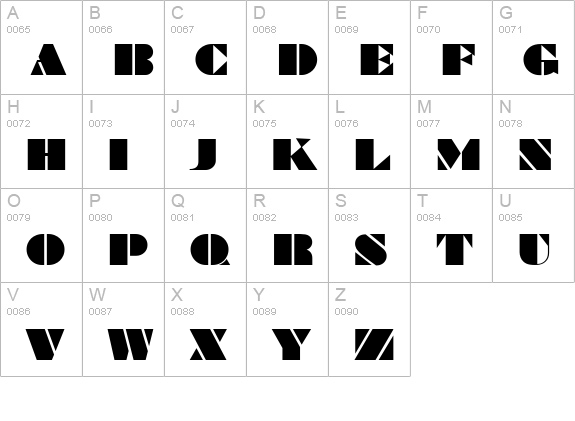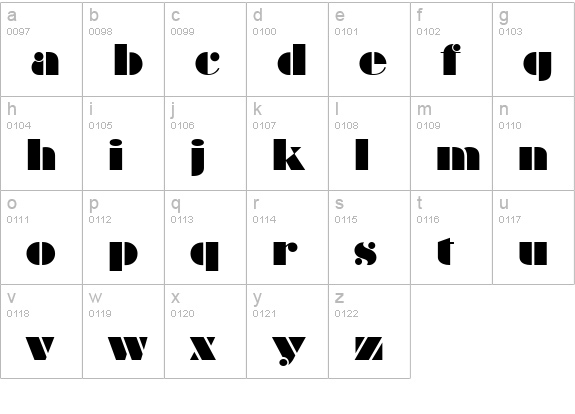
FFX Brag Font Details
Introducing FFX Brag font, a bold and eye-catching typeface that exudes confidence and sophistication. With its unique and stylish design, FFX Brag is perfect for making a statement in your designs. This versatile font is ideal for branding, advertising, headlines, posters, and more. The best part? FFX Brag is available for free download at FontsMarket.com. With just a few clicks, you can add this stunning font to your collection and start creating stunning designs right away. Don't miss out on this incredible opportunity to elevate your projects with FFX Brag font - download it for free today!